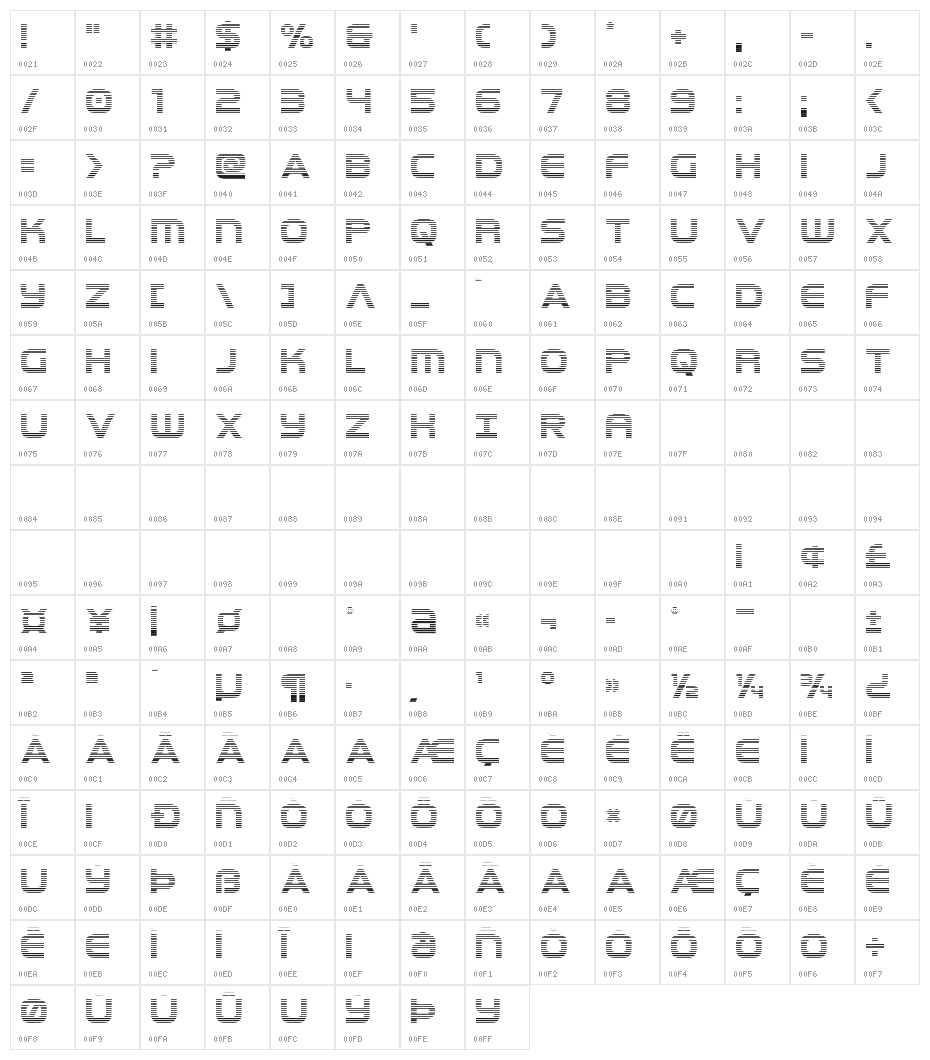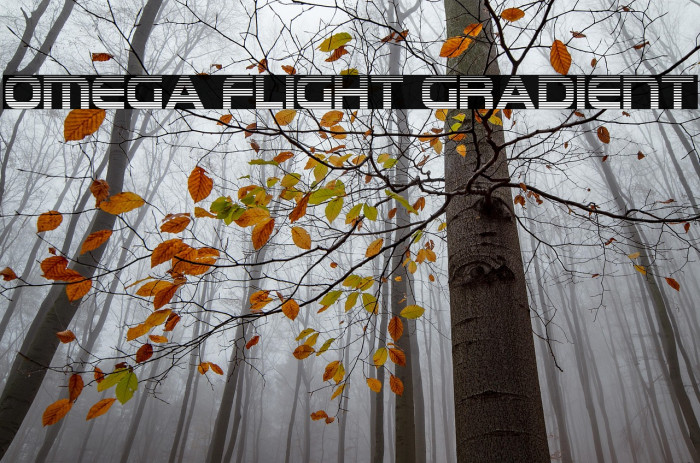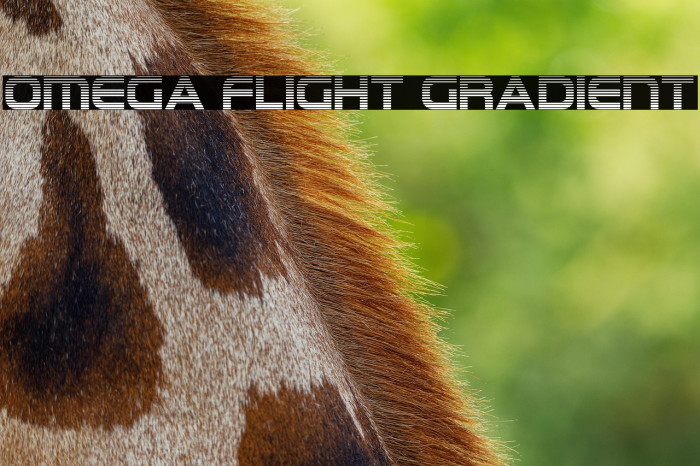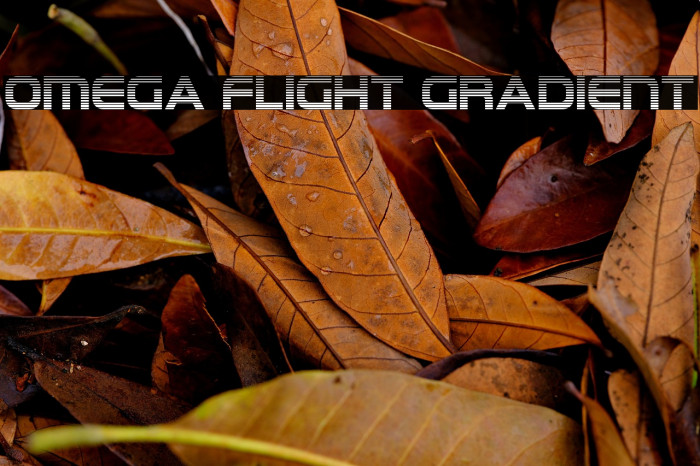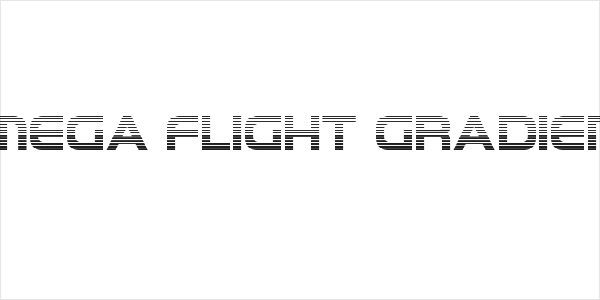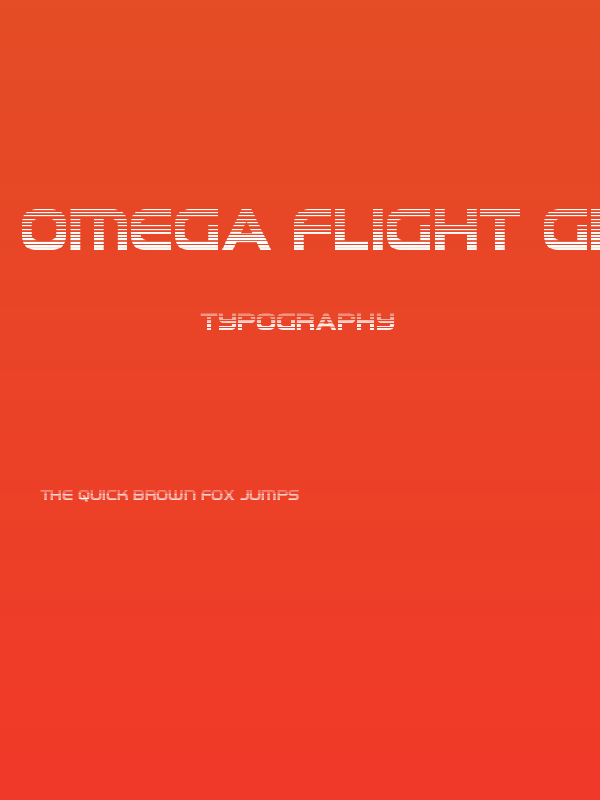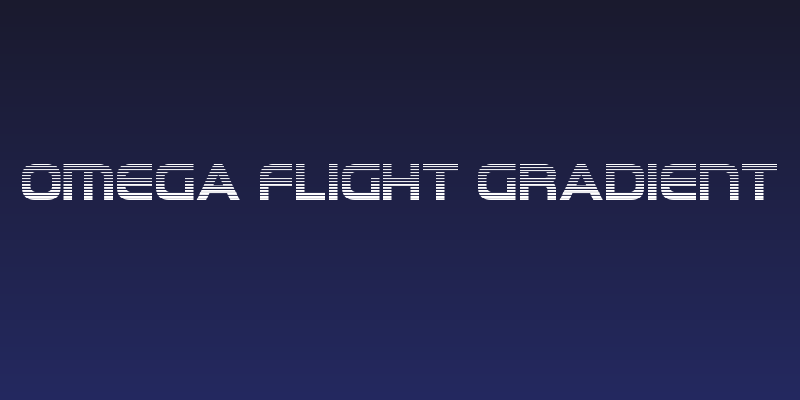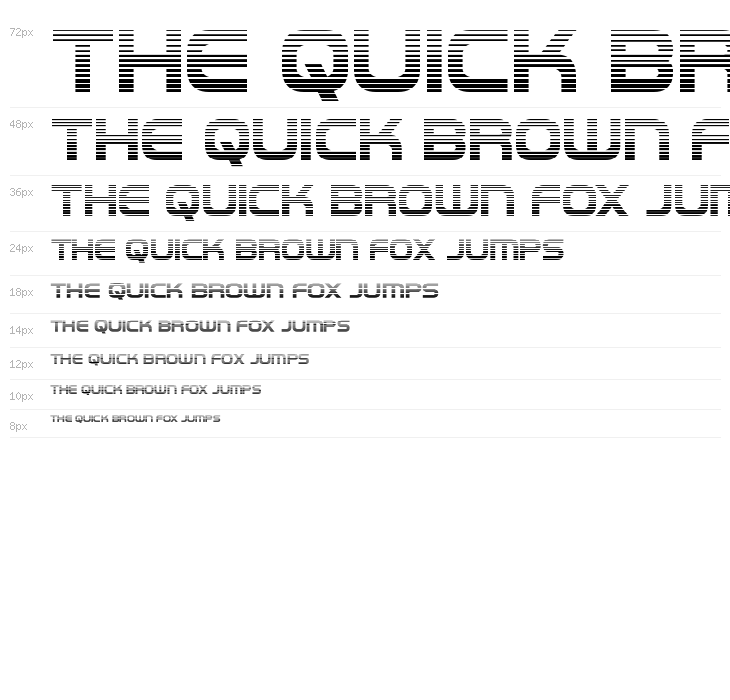
Omega Flight Gradient Font
Omega Flight Gradient Description
This font features a futuristic and dynamic design with a unique gradient effect created by horizontal lines running through each character. The uppercase and lowercase letters, as well as numbers and special characters, maintain a consistent style that emphasizes movement and modernity. The lines create a sense of depth and texture, making it visually striking and ideal for attention-grabbing designs. Its geometric structure and clean lines give it a sleek and polished appearance, suitable for projects that require a bold and innovative look.
| Proposed Projects | Ideal for sci-fi themed projects, technology branding, video game titles, and futuristic posters. |